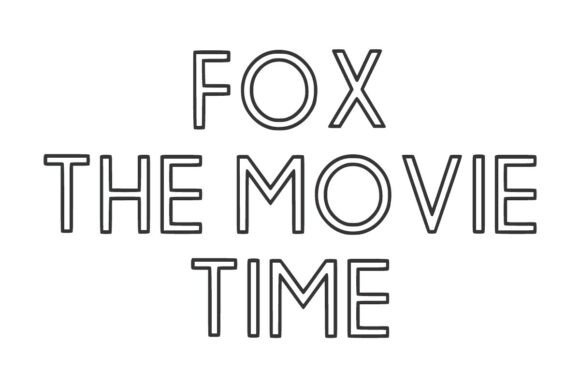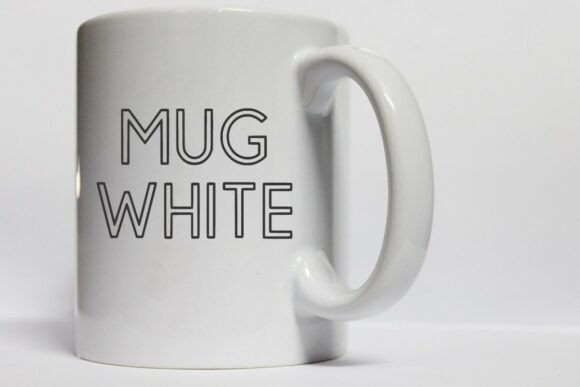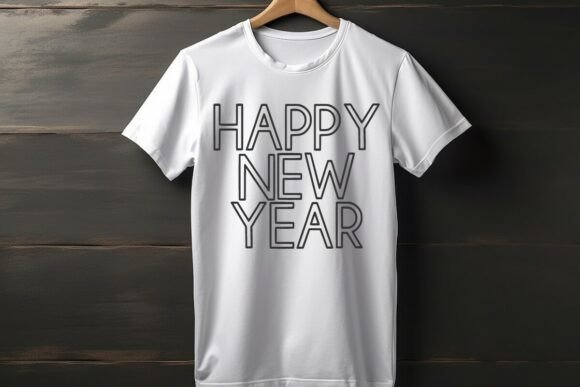
Introduction to Minimal Line Art Font
As designers, we’ve all been there – staring at a blank canvas, waiting for inspiration to strike. And then, it hits us – a burst of creativity that sets our imagination ablaze. For some, it’s a fleeting idea, but for others, it’s a full-fledged concept that sparks an entire design project. This time, I’m excited to share with you a design resource that I think will bring a touch of joy to your next creative project: the Minimal Line Art Font.
This beautiful, high-quality font is perfect for adding a playful twist to your winter and holiday branding projects. Its rounded lettering and minimalist design make it an ideal choice for product packaging, invitations, quotes, and anything that needs a dash of whimsy. Plus, with a transparent background, you can easily layer it over your favorite images or textures for a unique look.
Key Features of Minimal Line Art Font
- High-quality, scalable vector graphics for a variety of creative projects
- Transparent background for easy layering and compositing in design software
- Consistent line art style and simplicity make it ideal for illustrations, icons, and graphics
- Resolution-independent design ensures crisp, clear lines and details at any size or resolution
Honest Review: Minimal Line Art Font
I recently stumbled upon the Minimal Line Art Font, and I must say it’s a fantastic addition to any design project. The high-quality lines and simple design make it perfect for creating a clean and modern look. As a designer, I appreciate the simplicity and versatility of this font.
One of the things that works well is the transparency option, which allows for a seamless background integration. This feature is super useful for creative projects where you need to achieve a specific aesthetic.
Here are some of the key features that I love about this font:
- High-quality lines that are perfect for creating a modern look
- Transparent background option for seamless integration
- Suitable for a wide range of creative projects
- ⚠️ Limited character set, which may be a concern for those who need a wide range of characters
- ⚠️ Not suitable for projects that require bold or intricate typography
Overall, I’m impressed with the Minimal Line Art Font. It’s a great addition to any design library, and I’d highly recommend it for those who value simplicity and versatility in their creative projects. ✨
Tips for Getting the Most Out of Minimal Line Art Font
1. Use the font with a transparent background for a clean and modern look.
2. Experiment with different font sizes and styles to add visual interest to your design.
3. Combine Minimal Line Art Font with other design elements, such as images or shapes, to create a unique and eye-catching visual effect.
Common Use Cases for Minimal Line Art Font
1. Creating invitations and event graphics.
2. Designing social media graphics and ads.